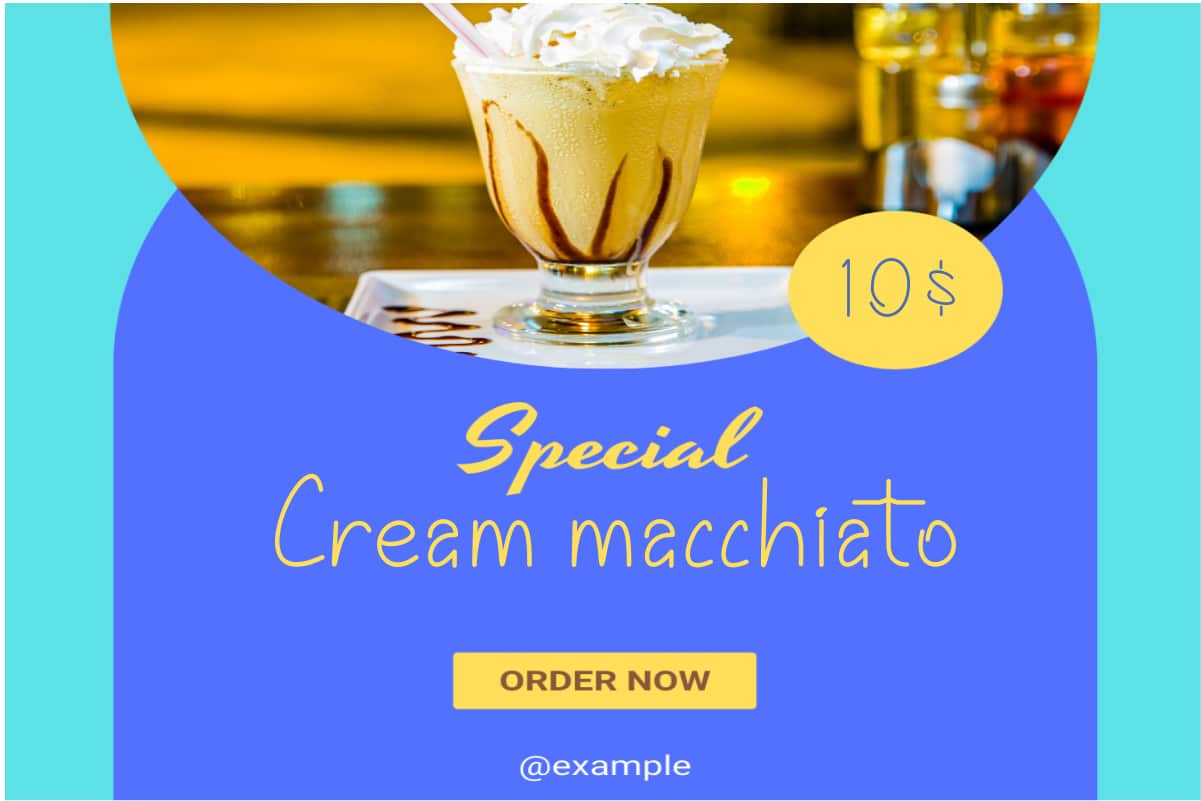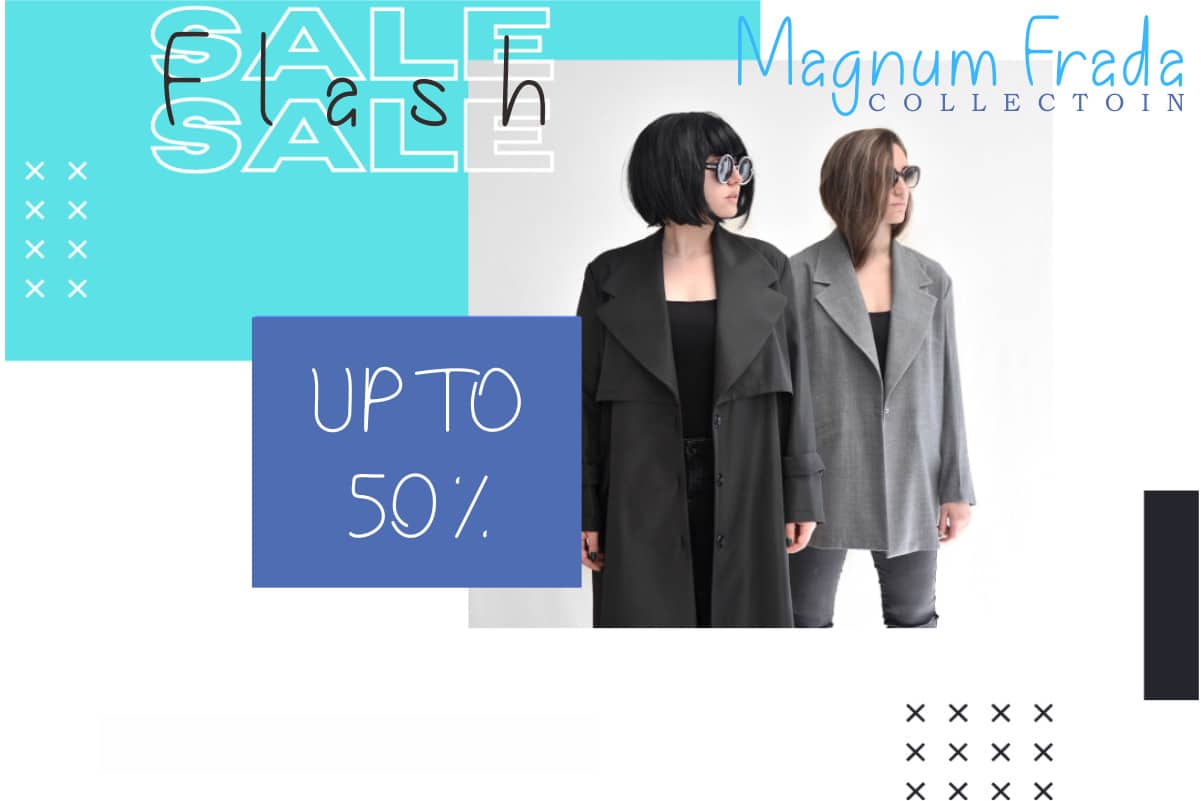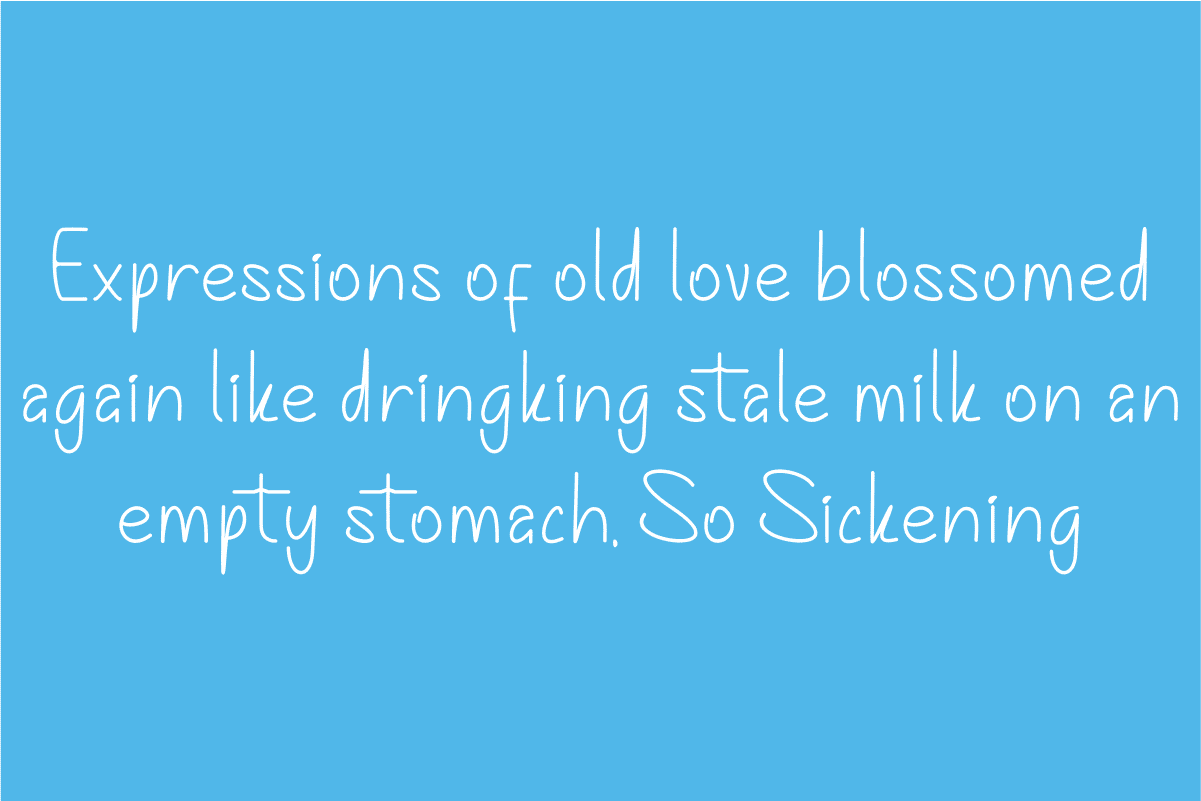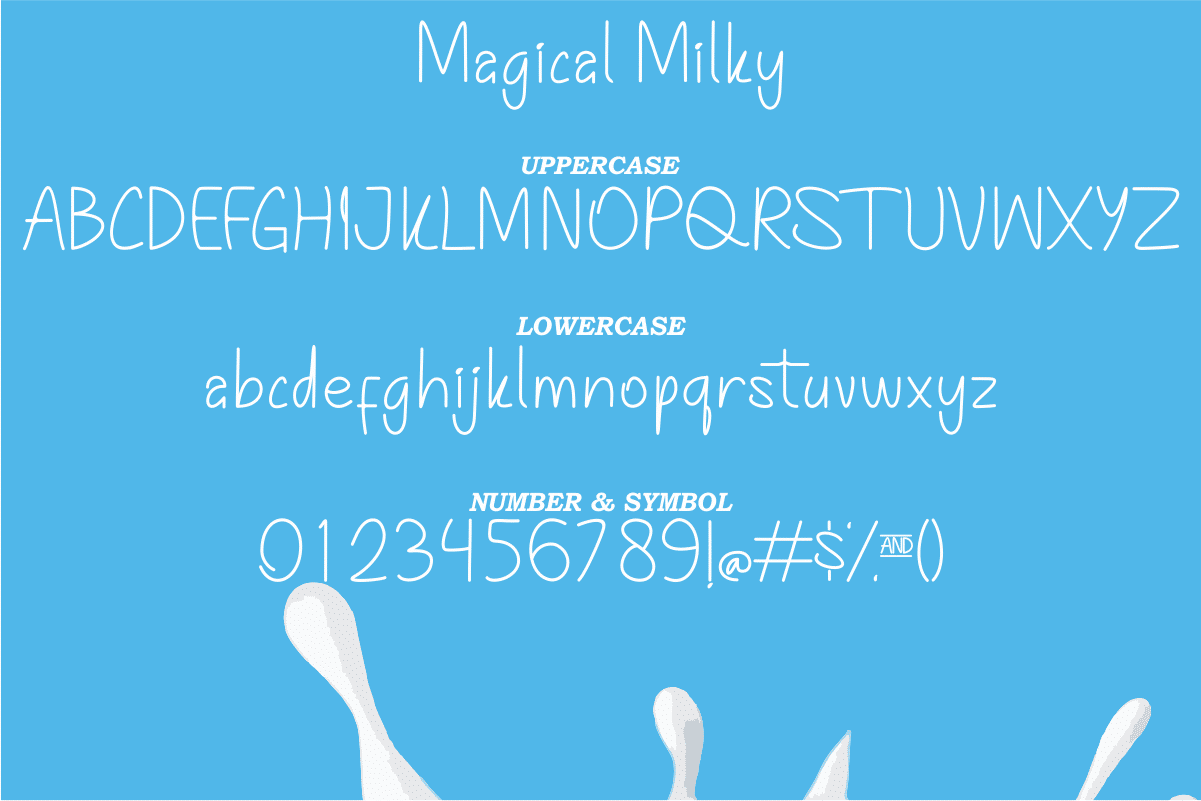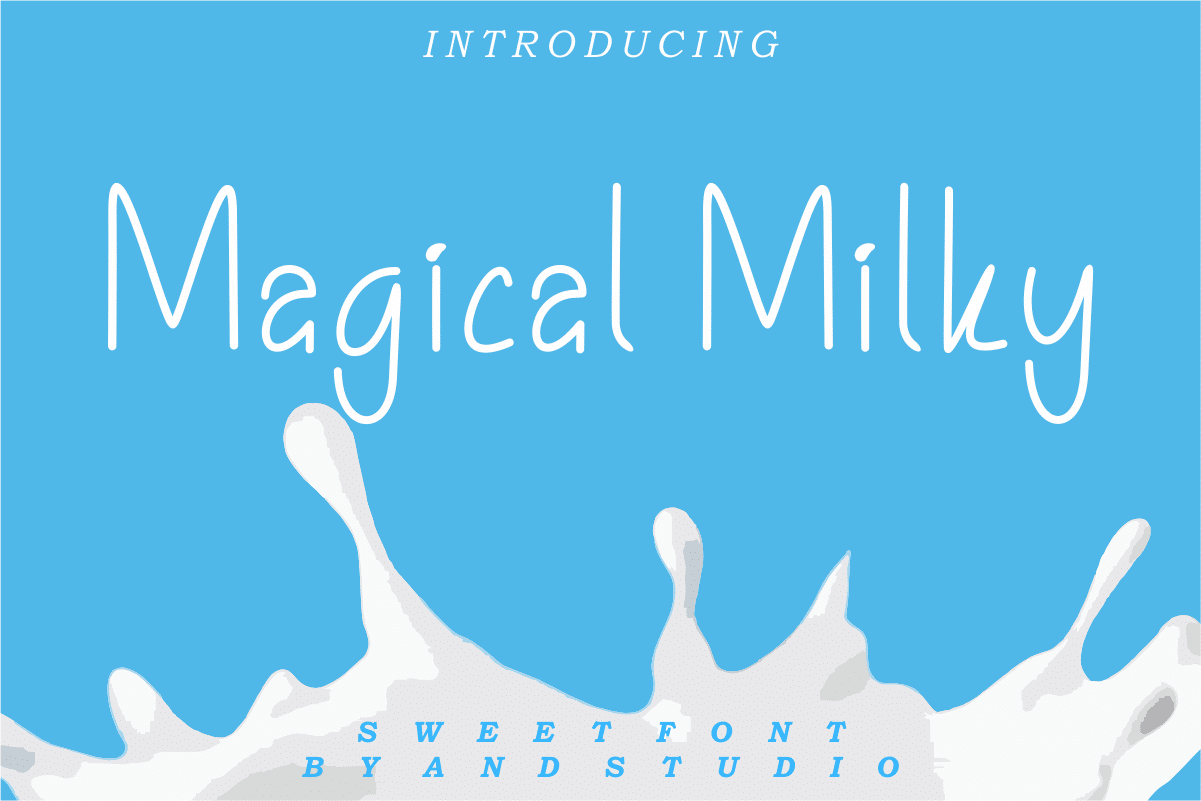
Magical Milky Font
Magical Milky this is Sweet font. It’s perfect for your design such as quotes, logo, branding, graphic design, photography, product, packaging, social media posts, etc.